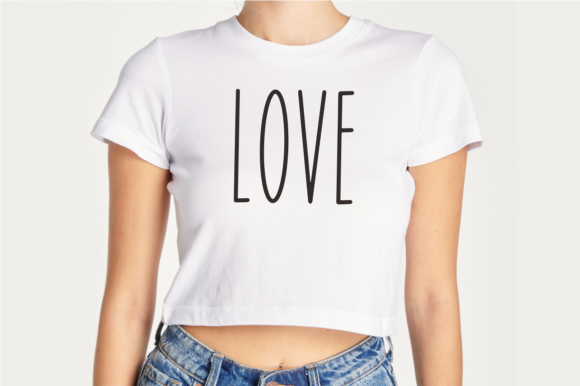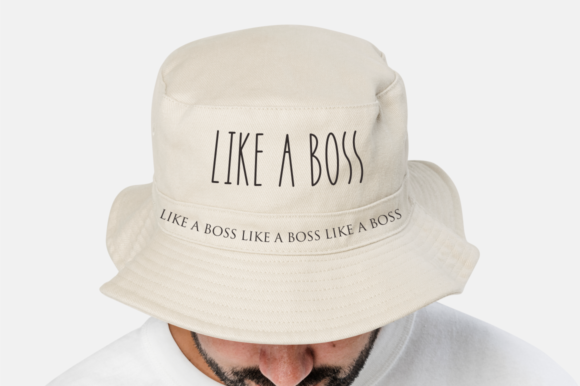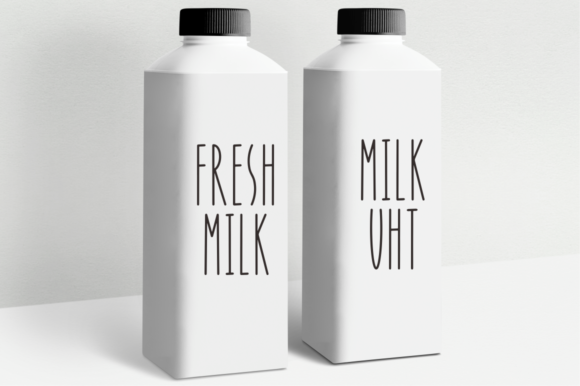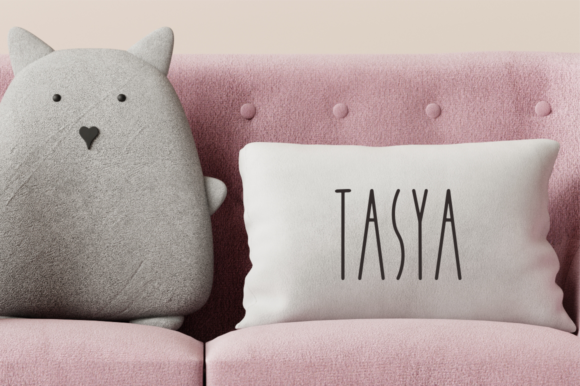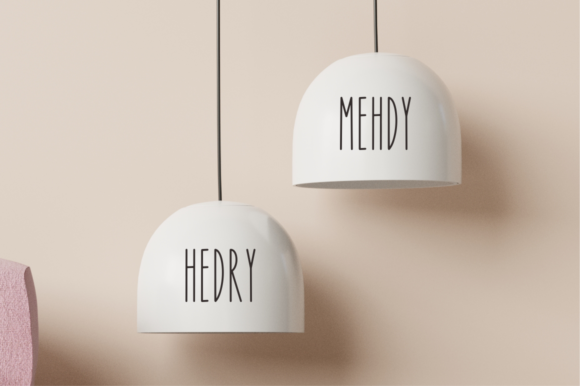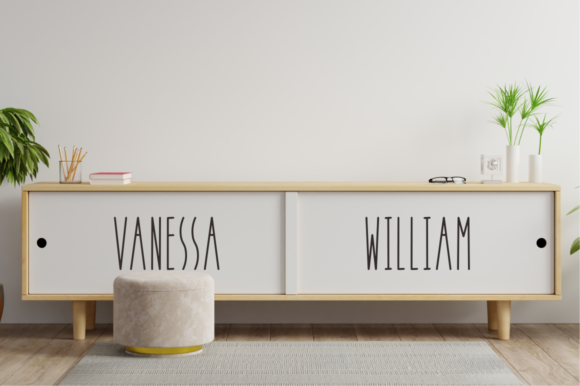
Discovering the Perfect Chalkboard Charm
As a designer, there’s nothing quite like the thrill of stumbling upon a new font that captures the essence of your creative vision. For me, it was the moment I laid eyes on the Apple Berry Font – its charming, rustic feel instantly transported me to a classroom chalkboard, where creativity and learning come alive.
The Apple Berry Font is a delightful, sans-serif typeface designed specifically for adding a personal touch to teaching materials and chalkboard quotes. Its authentic look and tall, simple lettering make it an ideal choice for designers seeking to infuse their designs with a warm, nostalgic feel.
With the Apple Berry Font, you’ll be able to craft designs that exude a sense of timelessness and authenticity, making it a valuable addition to any designer’s toolkit.
Apple Berry Font Key Features
- Font Family: Apple Berry Font is a sans-serif font family.
- Unique Characteristics: Apple Berry Font features a unique blend of modern and playful design elements, making it perfect for use in creative projects and branding.
Designer Review: Apple Berry Font
Overall, I’d say the Apple Berry Font has a certain charm to it, but it’s not without its quirks. Here are my thoughts:
- Unique and playful design: The font has a distinctive look that’s perfect for adding a touch of whimsy to your designs.
- Good legibility: Despite its unconventional design, the font is still easy to read, making it suitable for body text.
- Customization options: The font comes with a range of weights and styles, allowing you to tailor it to your design needs.
- Limited font pairing options: The font’s distinctive design can make it challenging to pair with other fonts without clashing.
- May not be suitable for formal designs: The font’s playful nature makes it better suited for informal or creative projects.
- Some letterforms may be confusing: A few of the letterforms, such as the ‘k’ and ‘q’, may require some getting used to.
The Apple Berry Font is a fun and quirky addition to any designer’s toolkit. While it may not be the best choice for every project, it’s perfect for adding a touch of personality to your designs. With some careful consideration and pairing, this font can add a unique and eye-catching element to your work.
Getting the Most Out of Apple Berry Font
To get the most out of the Apple Berry font, use it in conjunction with other whimsical or hand-drawn fonts to create a unique and eye-catching design. Experiment with different font sizes, colors, and styles to achieve the desired look. You can also use the Apple Berry font in conjunction with graphics or illustrations to add a touch of personality to your design.
The Apple Berry font is commonly used in designs that require a playful or whimsical touch, such as:
- Birthday invitations or party decorations
- Wedding stationery or save-the-dates
- Children’s book covers or illustrations
- Food or drink branding